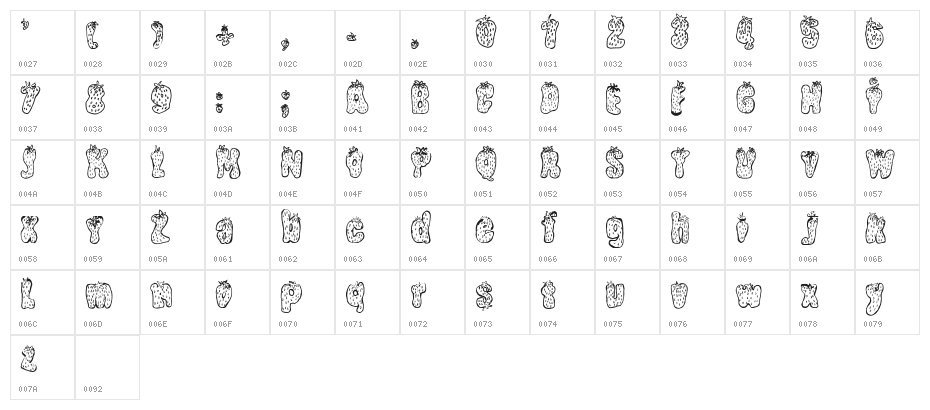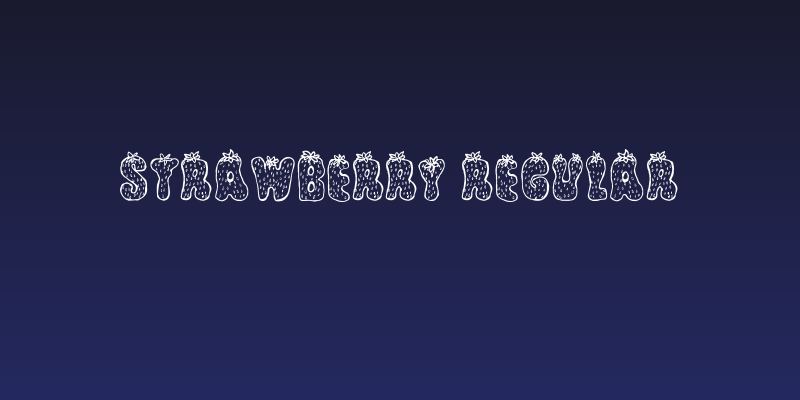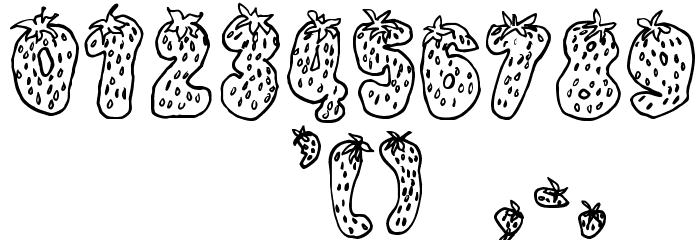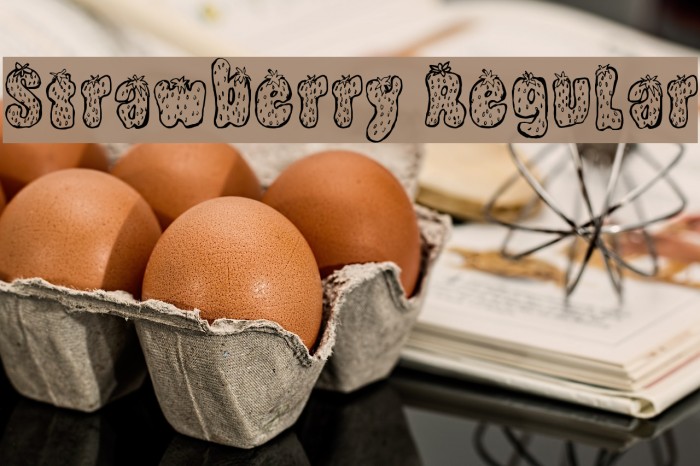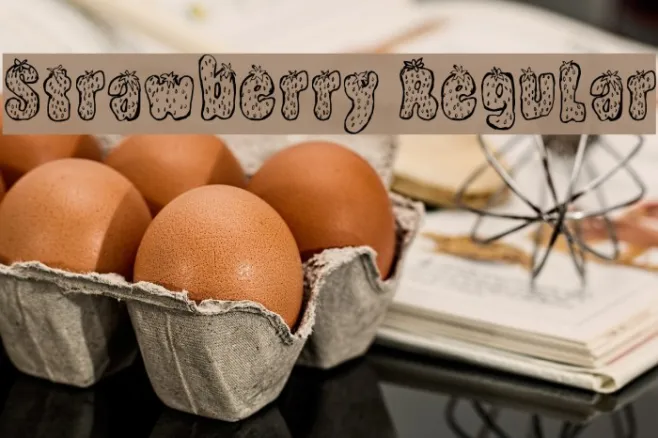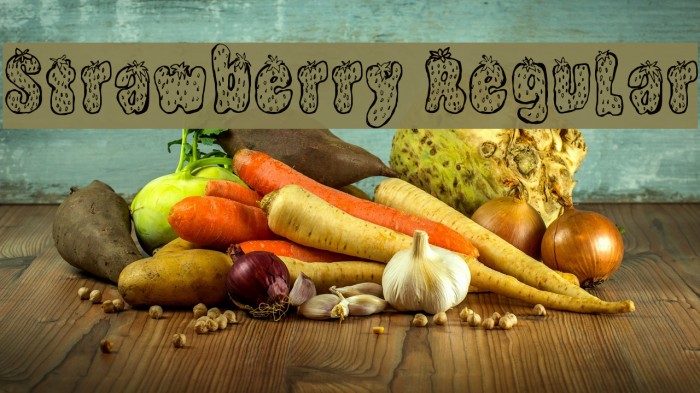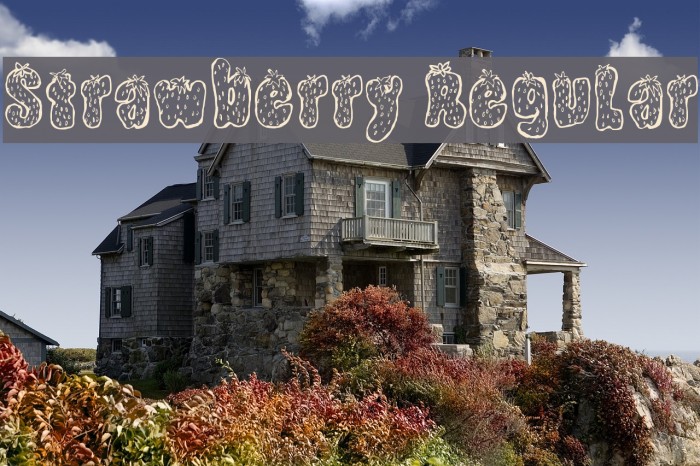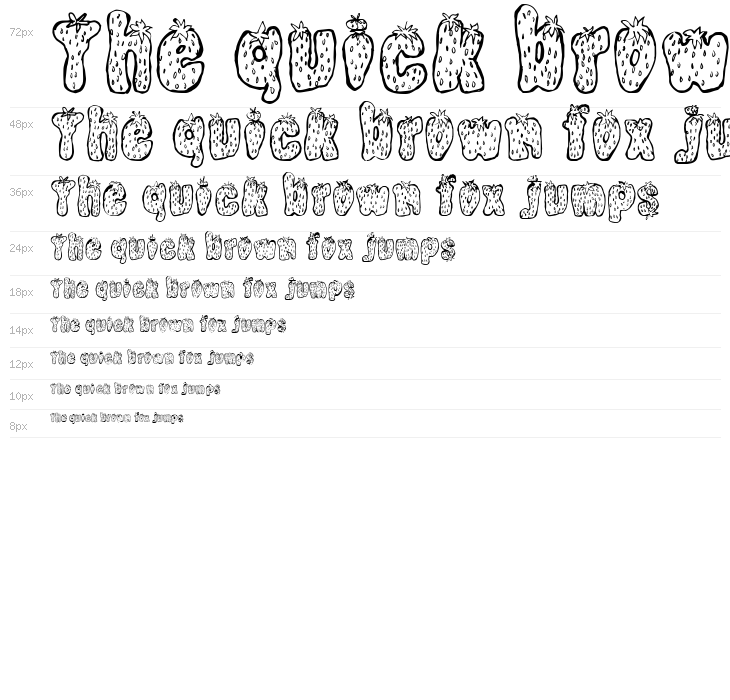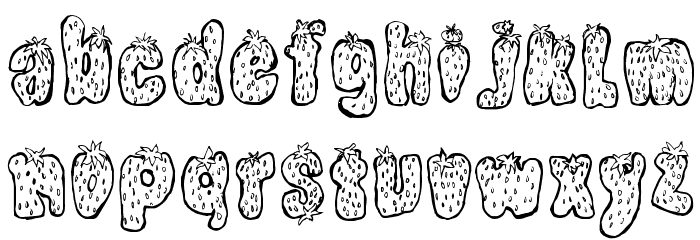
Strawberry Regular Font
Strawberry Regular Description
This playful and whimsical font is characterized by its unique strawberry-themed design. Each letter is creatively crafted to resemble a strawberry, complete with seeds and leafy tops, giving it a fun and quirky appearance. The font features a hand-drawn style with a decorative flair, making it ideal for projects that require a touch of creativity and imagination. The characters are bold and rounded, with a consistent thickness throughout, adding to its charm. The font's distinct style makes it stand out, perfect for eye-catching designs.
| Proposed Projects | Ideal for children's book covers, playful branding, themed party invitations, and creative posters. |